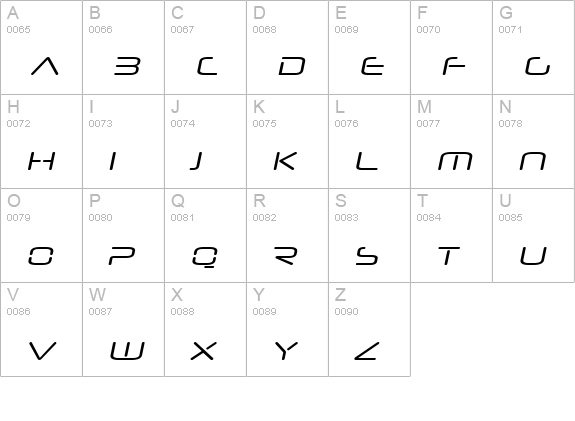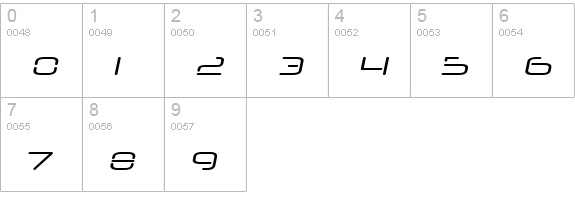
Neuropol Nova Xp Italic Font Details
Neuropol Nova Xp Italic is a distinctive, italic variant in the Neuropol typeface family \xE2\x80\x94 well suited to design and typography projects.
Neuropol Nova Xp Italic font is a sleek and futuristic typeface that exudes modernity and sophistication. Its italicized design adds a touch of elegance and flair to any project, making it perfect for use in digital and print materials. This font is ideal for creating impactful headlines, branding materials, and editorial designs. What sets Neuropol Nova Xp Italic font apart is not only its stylish appearance but also its accessibility. This font is available for free download at FontsMarket.com, making it a valuable resource for designers, creatives, and anyone looking to elevate their projects with a contemporary and eye-catching typeface. Don't miss out on the opportunity to add this versatile and striking font to your collection today!